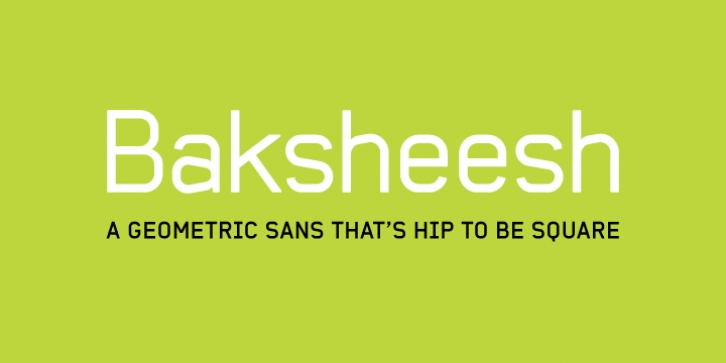
Baksheesh downloadDesigner: Stuart Brown
Publisher: HamburgerFonts
The Baksheesh family comes in three weights with accompanying italics and small caps.
The catalyst for the development of the typeface came from the desire to create a contemporary family of constructed letterforms built upon a flexible system. The aesthetic of the font is influenced by the characters drawn by Wim Crouwel in 1976 for Olivetti’s typewriter font that could support varying character widths, hence Baksheesh’s faux-monospace appearance.
Each of the characters has been designed according to an intricate grid, helping to rationalise the letterforms into a system that can be translated across the various styles. The flexibility of the grid also allows for optical adjustments to be made, for example stroke thinning at junctions and baseline/x-height overshoot for enhanced definition throughout.
Baksheesh is suitable for setting small amounts of text as a distinguishable and legible headline font.